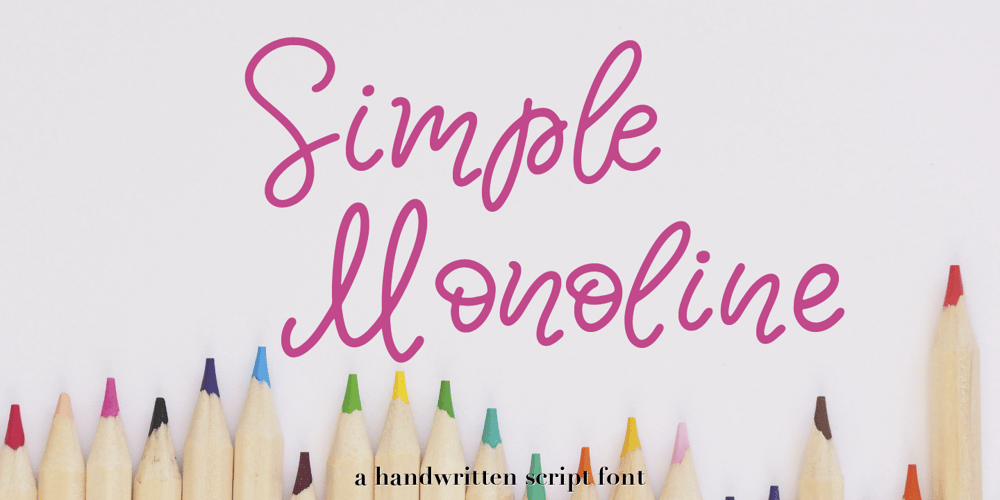
Simple Monoline Font Family was designed by Elena Almazova-Dolzhenko and published by Almazova Dolzhenko. Simple Monoline contains 1 styles and family package options. Simple Monoline has the character of childlike spontaneity and playful cartoon mood. It will look great for logotype, quotes, greeting cards, social media overlays, prints, ads and much more.Simple Monoline is hand-drawn and contains a full set of uppercase and lowercase letters and one alternate set of lowercase letters plus a big set of ligatures – which helps to imitate handwriting.Multilingual support is included.Features: Uppercase & Lowercase Alternate set of lowercase Numerals & Punctuation Ligatures Multilingual support I hope you love it and if you have any question, feel free to contact me!Thanks!Lena (instagram @almaz_dolzhe)